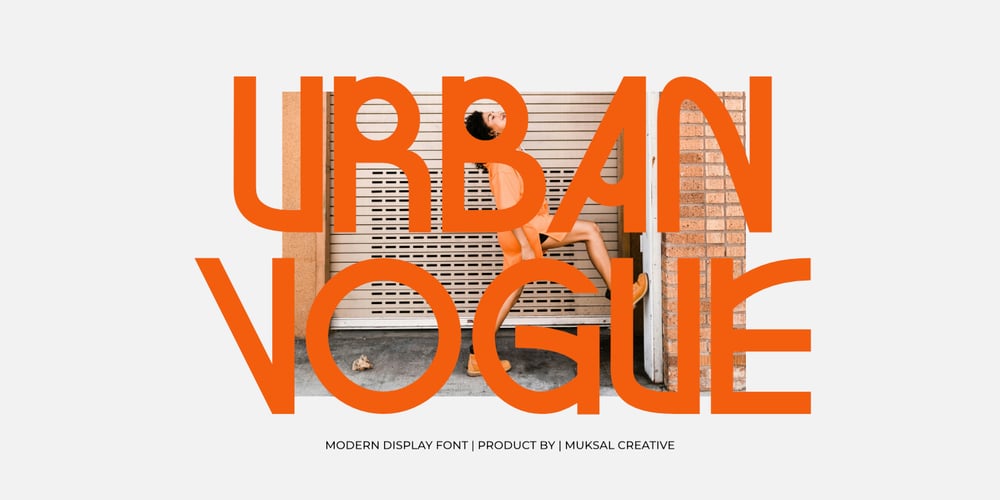
Urban Vogue Font Family was designed by Muksalmina and published by Muksal Creatives. Urban Vogue contains 1 styles and family package options. Urban Vogue is a modern and stylish sans-serif font, designed to capture the essence of chic and contemporary urban fashion. With its clean and elegant design, Urban Vogue offers a modern and minimalist vibe, perfect for branding, editorials, and promotional materials that need a trendy touch.This font features smooth shapes and balanced proportions, giving it a sophisticated and classy feel. Its versatility allows it to be used in a variety of contexts, from fashion magazines to advertising campaigns. Urban Vogue is the perfect choice for those looking to add a touch of modern luxury to their designs.